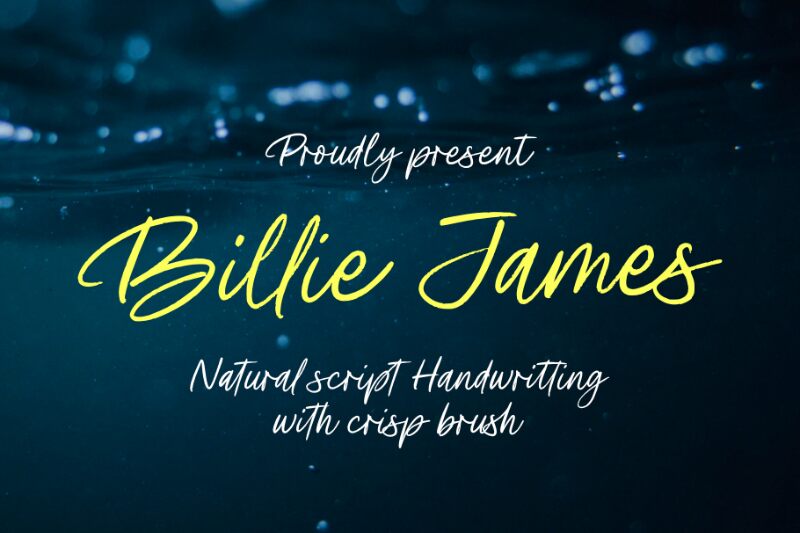
Billie James font, designed by Ardian Nuvianto of Damarletter, is an enchanting handwritten typeface that exudes elegance and personality. Its gentle curves and flowing strokes create a whimsical charm that captivates the eye. The delicate lightness of the letters evokes a sense of grace, making it perfect for projects that seek a personal touch.
The artistry in Billie James makes it exceptionally versatile; it can beautifully enhance invitations, branding elements, or any endeavor prioritizing authenticity. This font thrives in contexts where warmth and creativity are essential, allowing users to convey feelings with every stroke. Whether adorning wedding stationery or enhancing a boutique logo, Billie James is a stunning choice for designs aiming to leave a lasting impression.